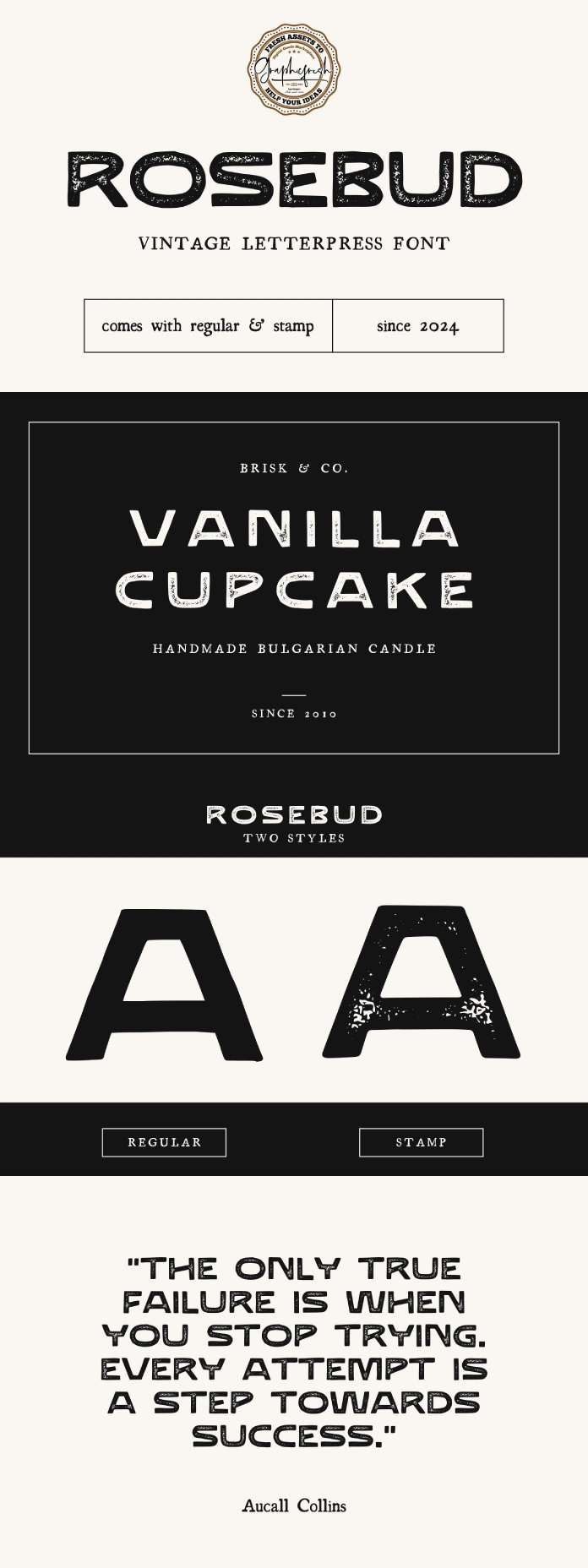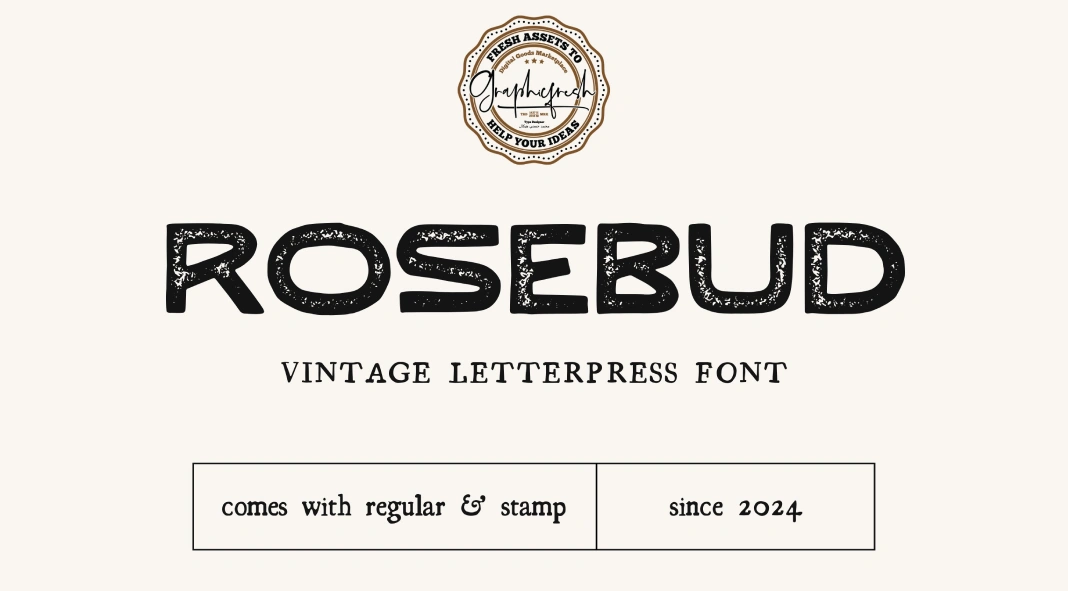
You may have noticed that finding a font that blends vintage charm with modern functionality can be daunting. But a perfect option is Rosebud, a stunning vintage letterpress font handcrafted by Graphicfresh. This unique typeface captures the essence of hand-written styles and the timeless appeal of classic letterpress design, making it an exceptional choice for creatives seeking to infuse their projects with a touch of old-world elegance.
A Touch of Vintage Elegance
Rosebud stands out with its distinct character and beautifully imperfect details, reminiscent of traditional letterpress printing. Each letter is meticulously designed to reflect the subtle inconsistencies and tactile quality of hand-printed type, bringing a warm, nostalgic feel to any design.
Versatility in Design
Ideal for a variety of creative projects, Rosebud shines in branding, poster design, and striking headers. Whether you’re working on a digital campaign or a print project, this typeface adds a distinctive personality to every word. Its carefully crafted letters ensure readability while maintaining an artistic flair, making it perfect for both digital and print mediums.
Rosebud by Graphicfresh is more than just a font; it’s a piece of art that brings the charm of vintage letterpress to the modern design landscape. Its unique style and versatile application make it an invaluable addition to any designer’s toolkit. Whether you’re aiming for a nostalgic look or want to add a touch of elegance to your project, Rosebud is the perfect choice. Embrace the timeless beauty of vintage design with Rosebud, and let your creativity flourish.